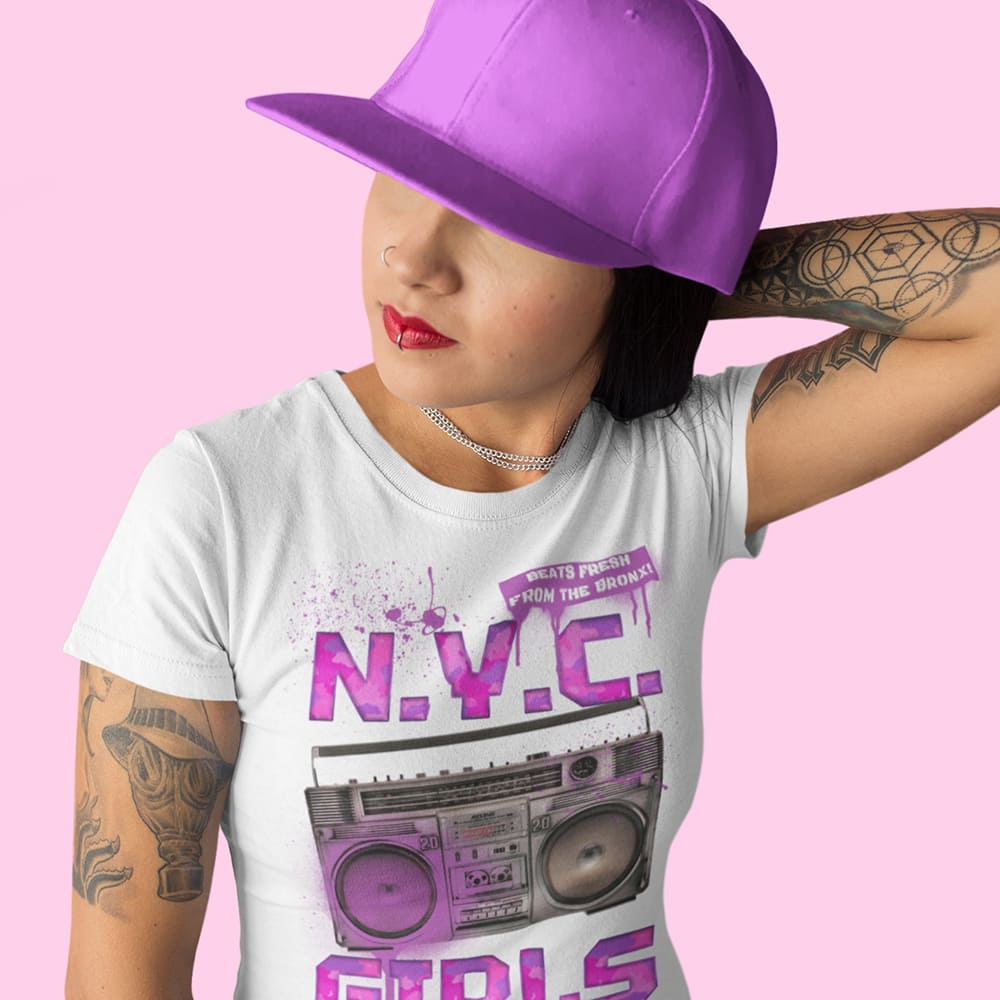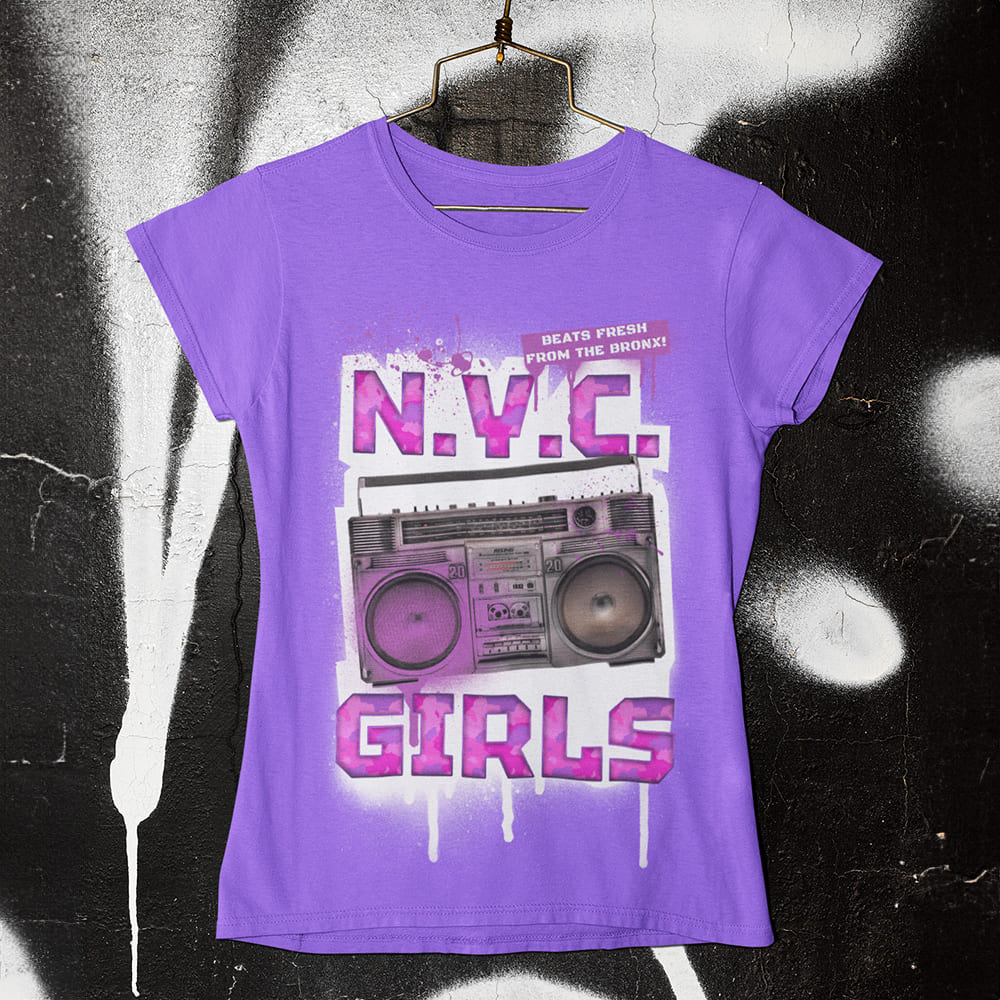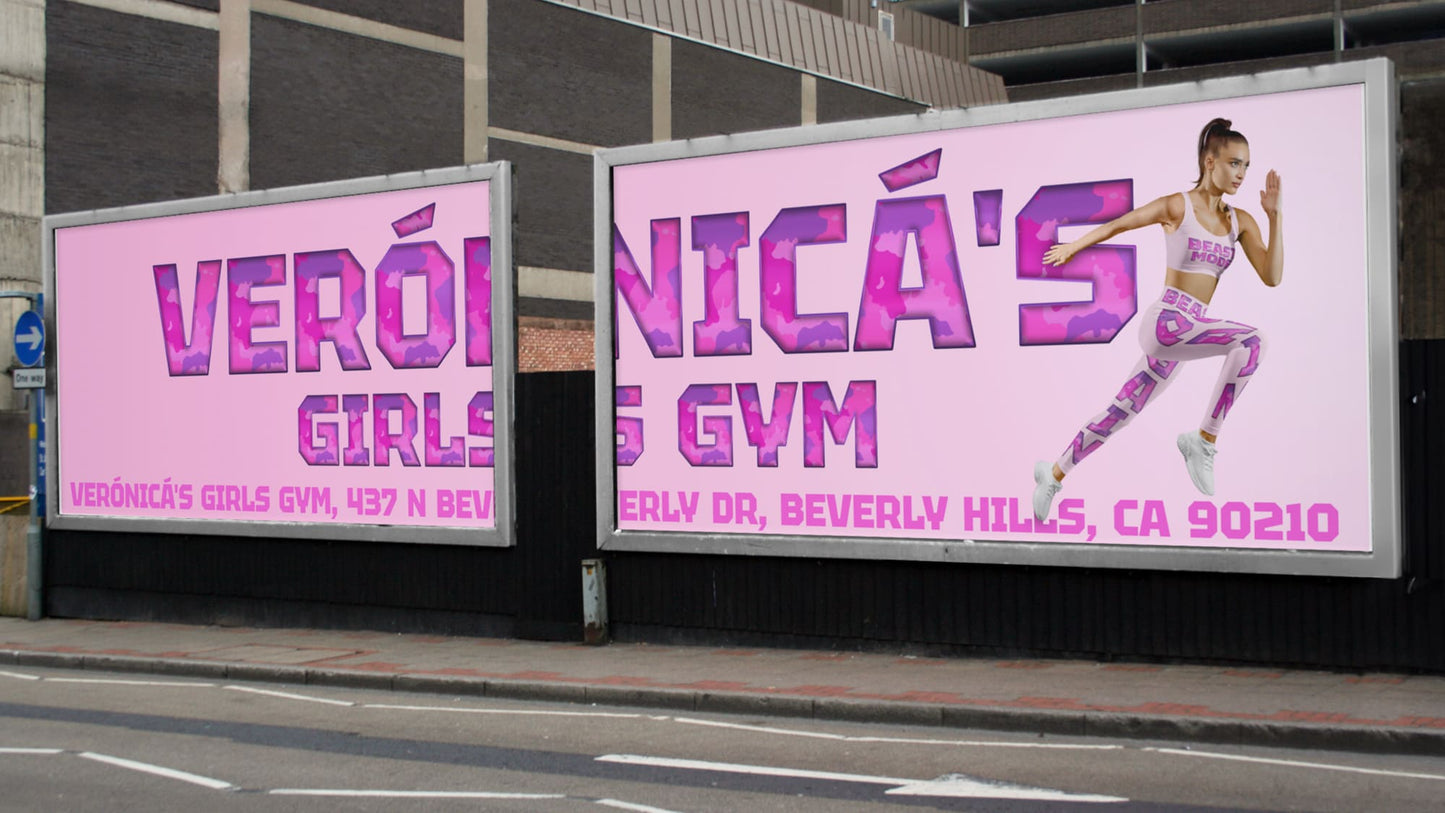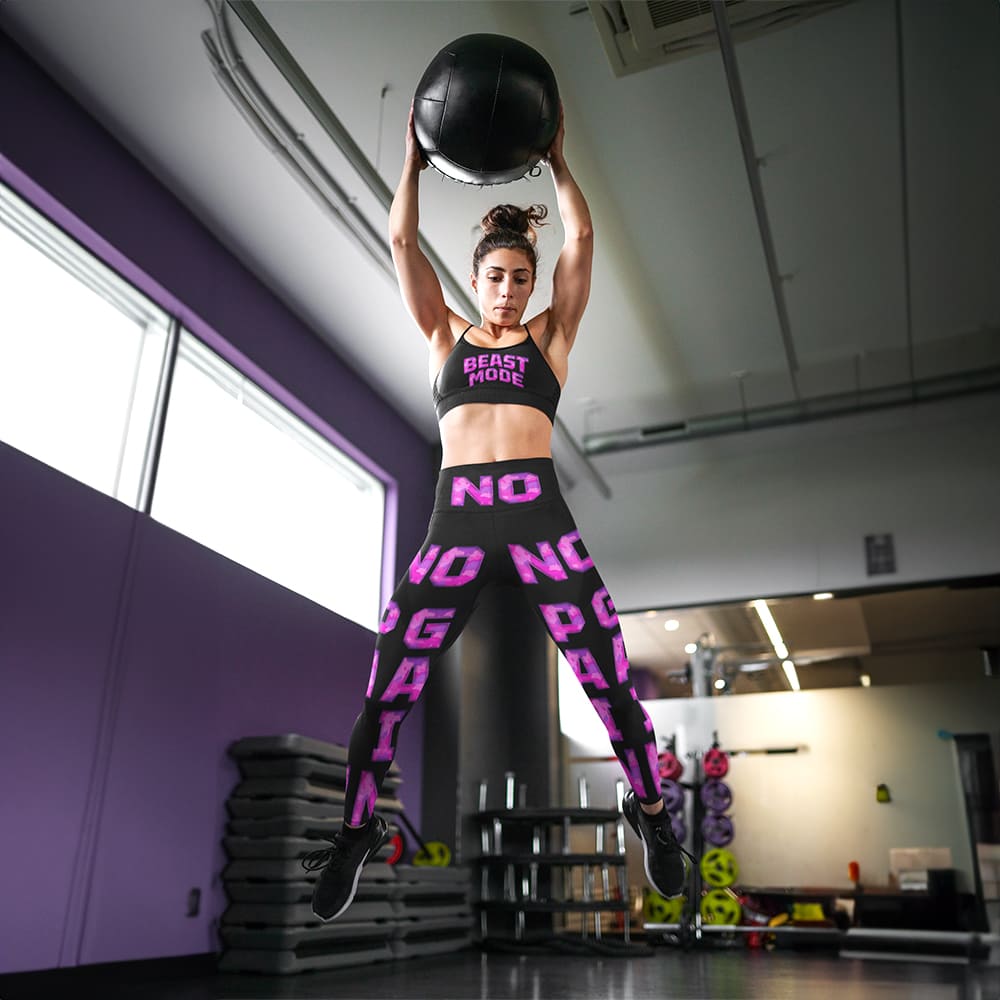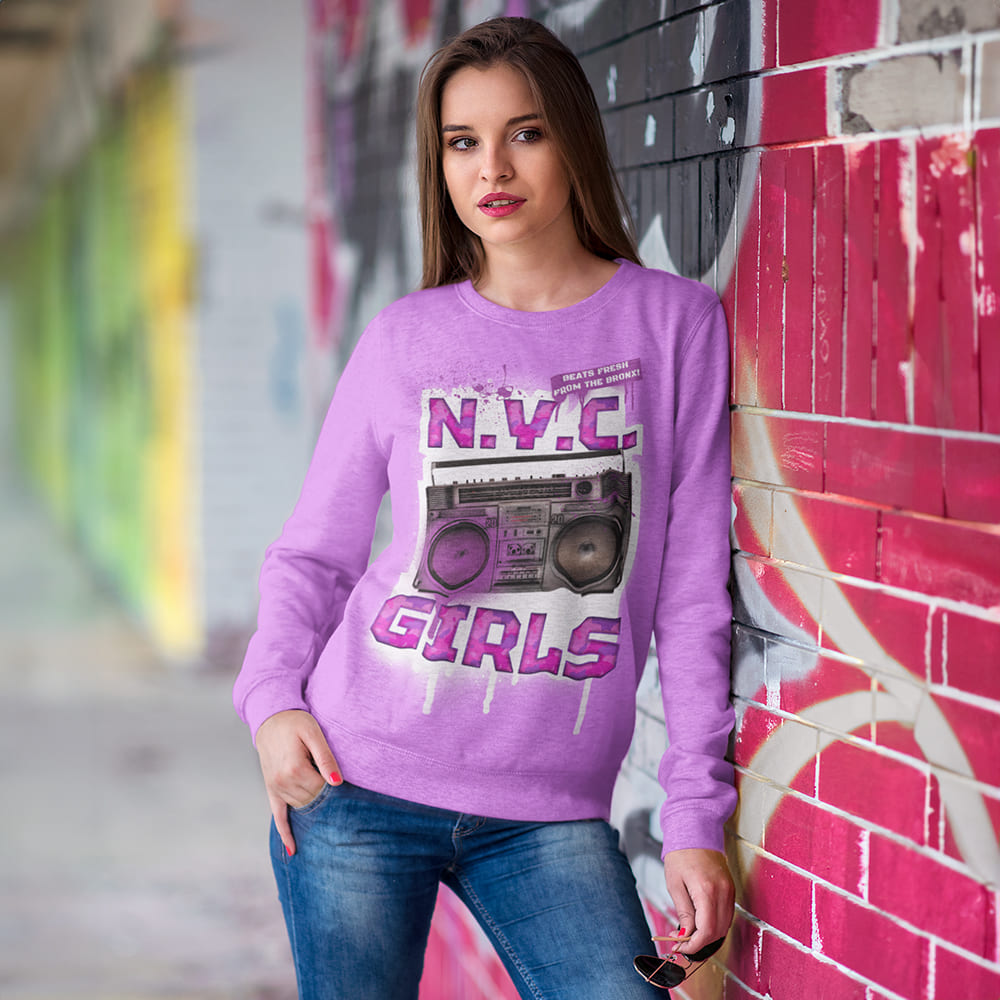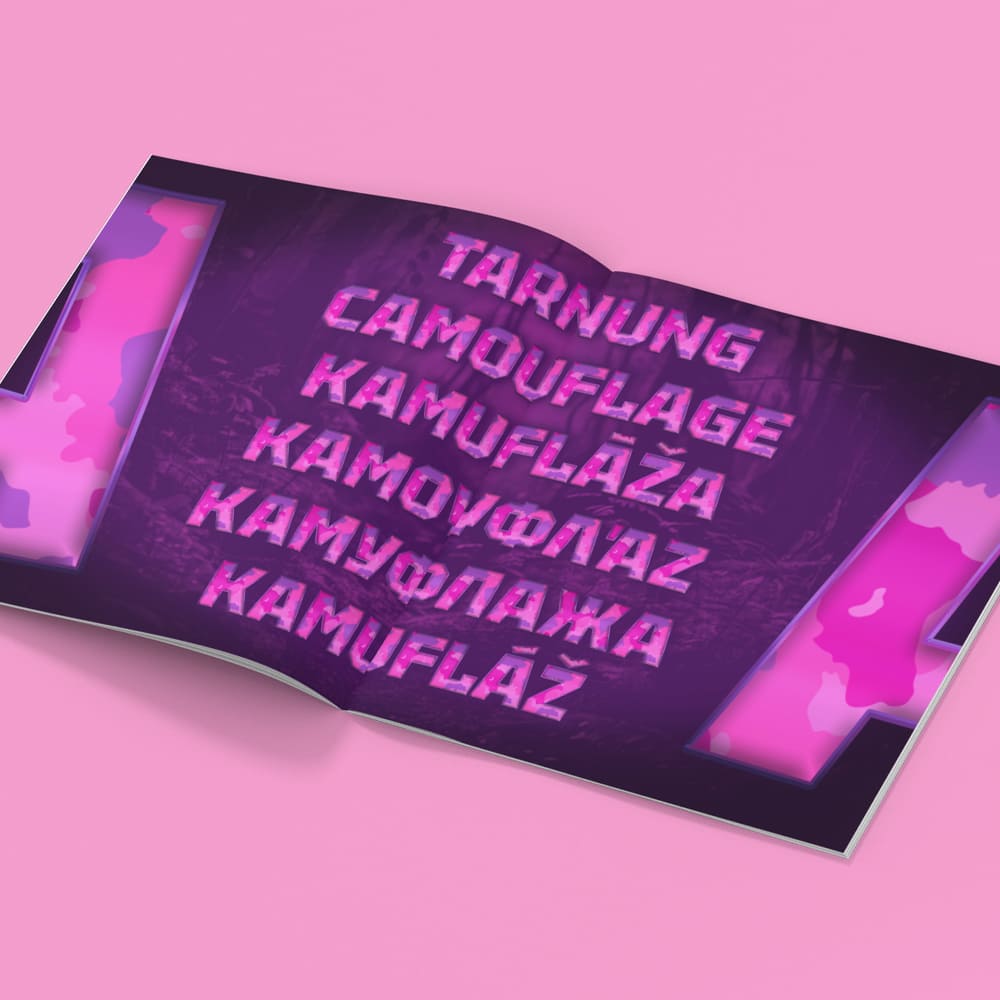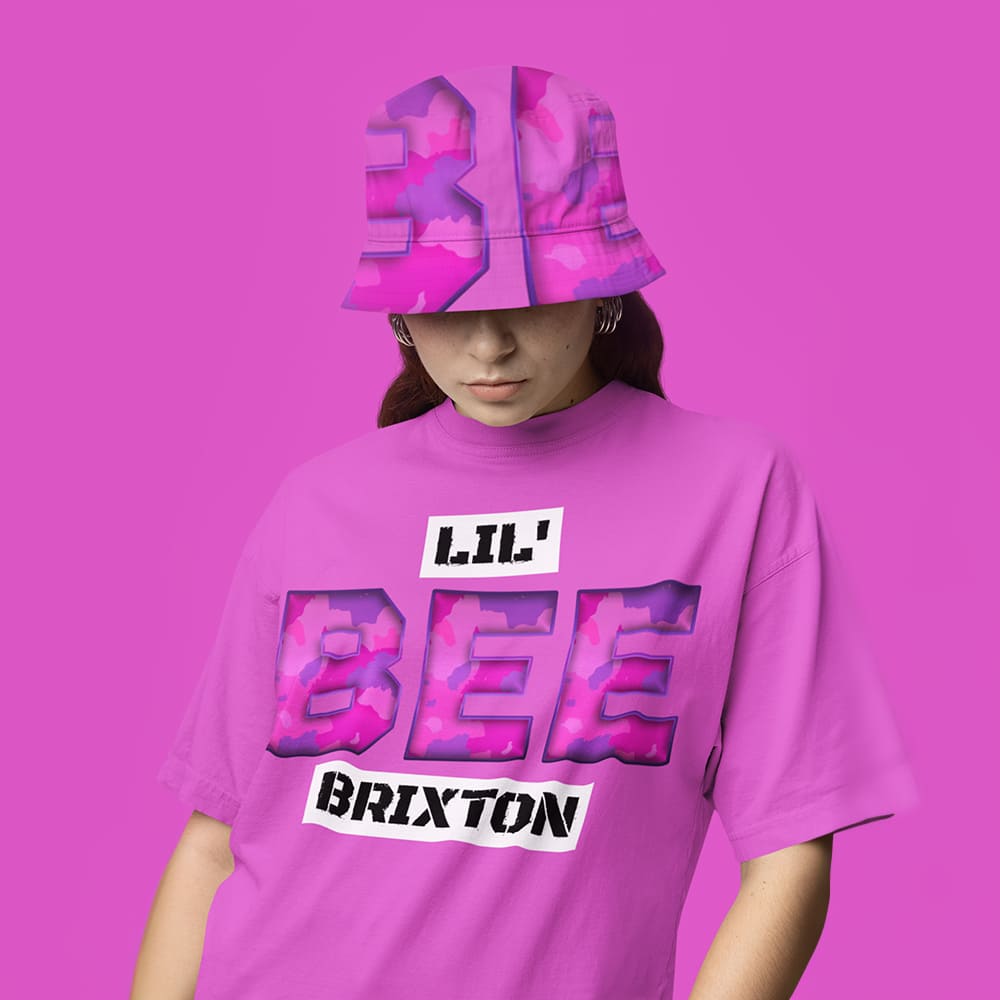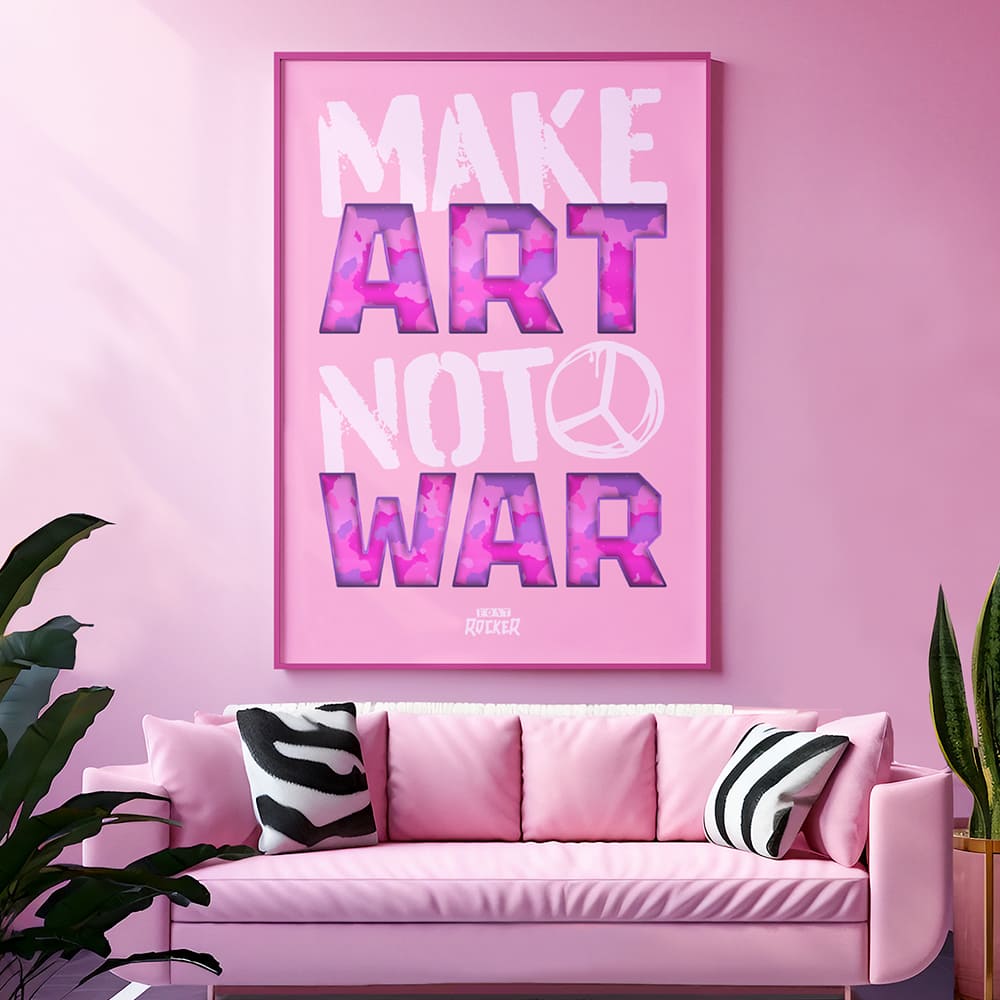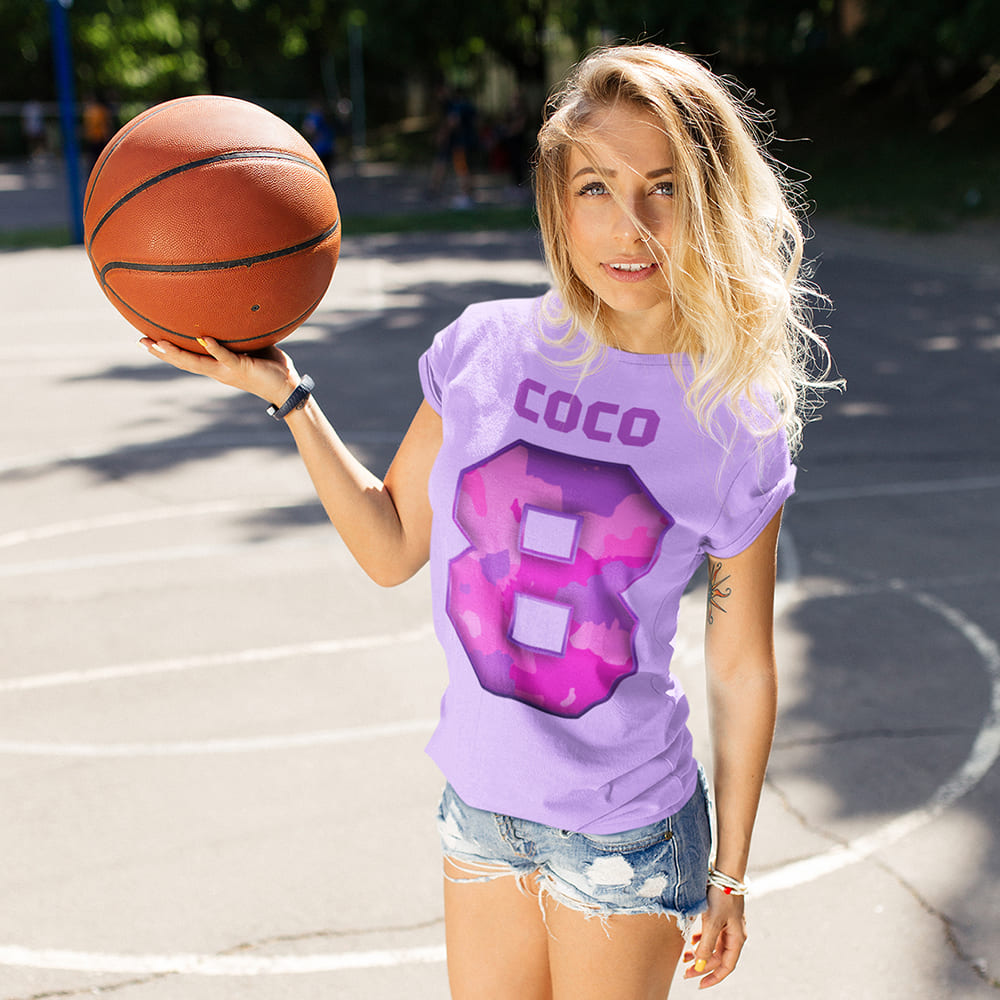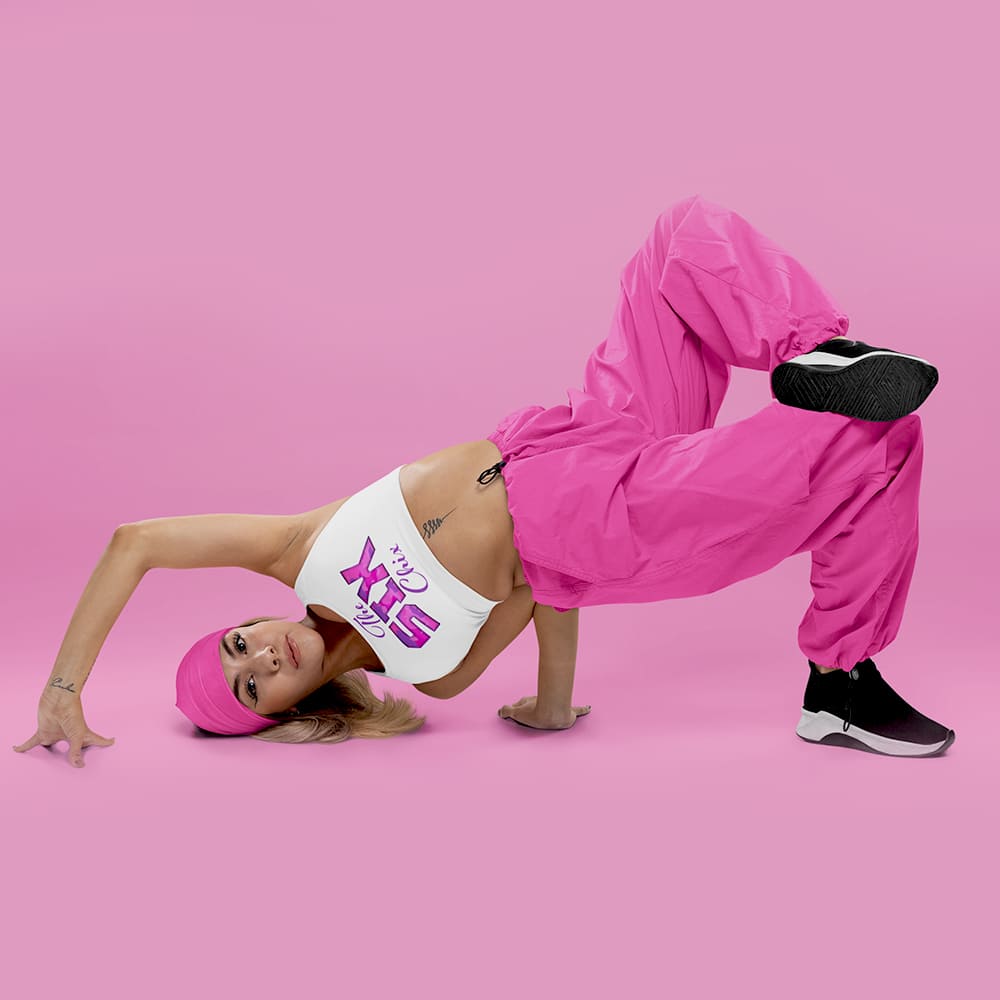
Girls Camouflage Font
Bold, Chic, Unique π βοΈπ
Camouflage isnβt just cool β itβs a statement of confidence, power, and unmistakable style! The Girls Camouflage Font brings this high-energy aesthetic to your designs, blending the edgy military look with a trendy, feminine twist.
Why Choose the Girls Camouflage Font?
πΉ Stylish & eye-catching β With its unique camo pattern, dynamic shapes, and a touch of glam, this font is a real showstopper.
πΉ Perfect for bold statements β Whether for fashion, beauty, social media, or branding, this font gives your designs a confident and trend-savvy appeal.
πΉ Modern & versatile β Inspired by street style, girl-boss vibes, and top fashion trends β ideal for designs that radiate power, individuality, and attitude.
π₯Β EVERY FONT ROCKER FONT COMES WITH 325 GLYPHS & SUPPORTS OVER 100+ LANGUAGES WORLDWIDE, INCLUDING CYRILLIC, GREEK & MORE.
Make a Statement with the Girls Camouflage Font
Make your design bold, stylish, and one of a kind! This font is perfect for those who love a feminine yet powerful look.
πΉ Stand strong. Stand stylish. Stand Camouflage.
πΉ Choose power. Choose glam. Choose the Girls Camouflage Font.